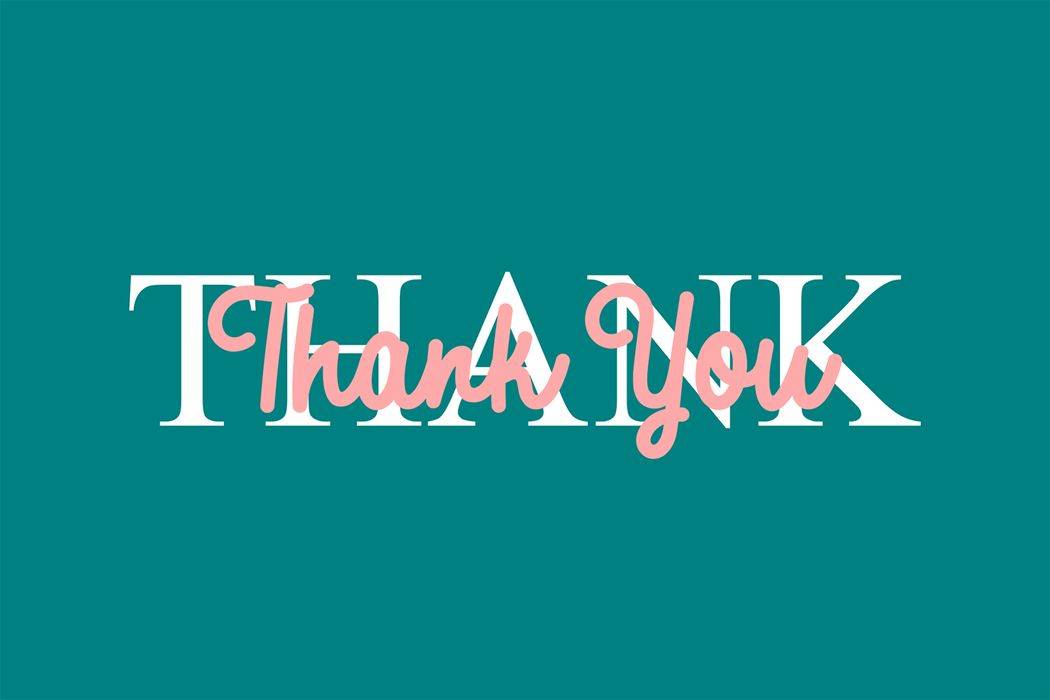
Sweaty Font is a lively and playful script typeface with a bold, rounded weight and smooth, flowing curves that give it a friendly and approachable personality. Its connected letters and handwritten style make it perfect for casual branding, invitations, and creative projects where a warm, informal feel is desired. This font works well in headlines and logos, bringing a personal touch and energetic vibe to any design.
Sweaty Font